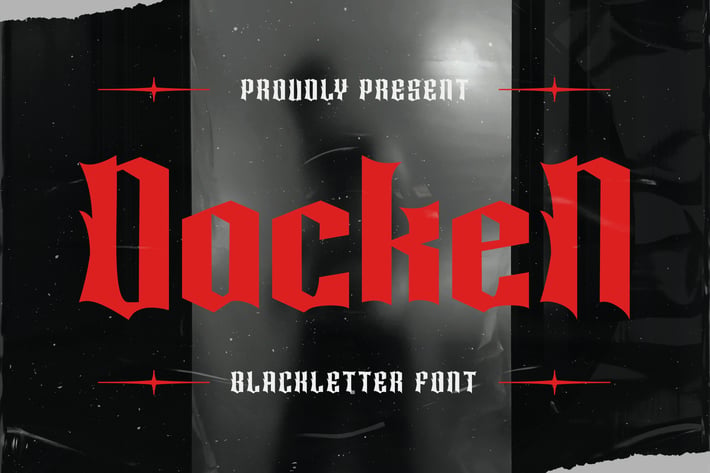
Dacken - Blackletter Font
Introducing "Dacken" - a bold and captivating blackletter font that channels the spirit of medieval calligraphy with a modern twist.
With its dramatic strokes and intricate details, "Dacken" commands attention and adds a touch of historical flair to any design. Each character is meticulously crafted to convey strength and authority, making it perfect for branding, posters, album covers, and more.
Embrace the boldness of "Dacken" as it effortlessly enhances your designs. Whether you're creating Gothic-inspired logos, dark and mysterious posters, or edgy merchandise, this font will captivate your audience with its striking and distinctive style.
Step into a world of medieval mystique with "Dacken" and let your designs make a bold statement with its timeless blackletter elegance.